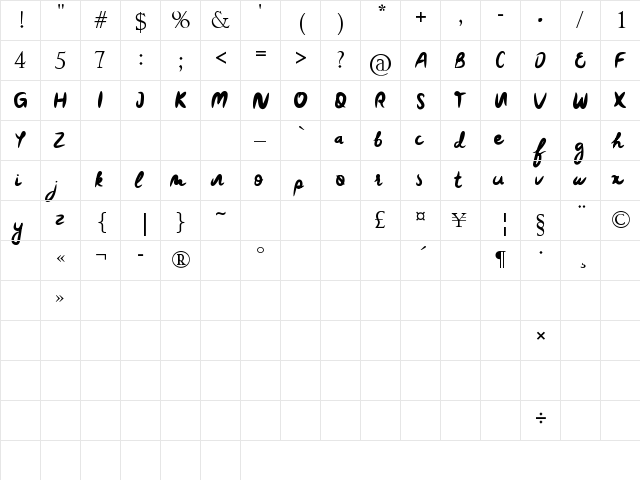
Dear Annabelle Regular
| Designer | Zaffar Sabbir |
Design Context for Dear Annabelle Typeface
Dear Annabelle is a composed and adaptable typeface that performs quietly and consistently across a wide range of design contexts.